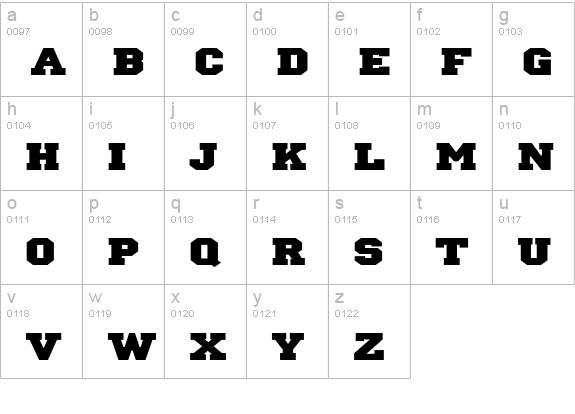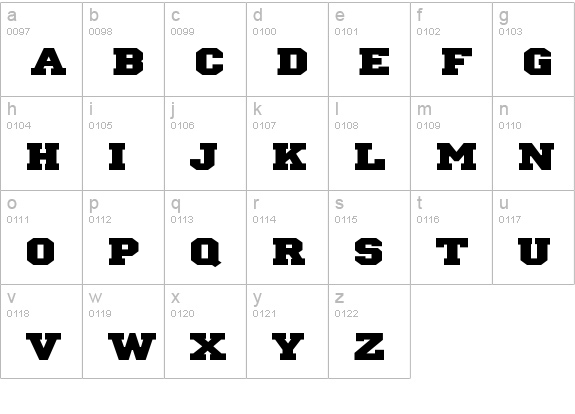
IvyLeagueExtendedSolid Font Details
IvyLeagueExtendedSolid is a beautifully crafted font that exudes elegance and sophistication. With its extended and solid letterforms, this font stands out with its unique and distinct style. Whether you're designing a logo, creating a brand identity, or working on a project that requires a touch of refinement, IvyLeagueExtendedSolid is the perfect choice. What sets IvyLeagueExtendedSolid apart is not only its aesthetic appeal but also its versatility. Its clean lines and well-defined shapes make it highly legible, ensuring that your message is effectively conveyed to your audience. The extended letterforms lend a sense of grandeur, making this font ideal for luxurious and high-end designs. But what makes IvyLeagueExtendedSolid even more special is that it is freely available to download at FontsMarket.com. Yes, you read that right - this exceptional font can be yours without any cost. FontsMarket.com is a trusted source for high-quality fonts, and with IvyLeagueExtendedSolid being available for free, it becomes even more accessible to designers and creatives worldwide. So, why wait? Take advantage of this opportunity and elevate your designs with IvyLeagueExtendedSolid. Whether it's for print or digital projects, this font will bring a touch of sophistication and professionalism to your work. Download IvyLeagueExtendedSolid today from FontsMarket.com and unlock a world of possibilities for your design endeavors.